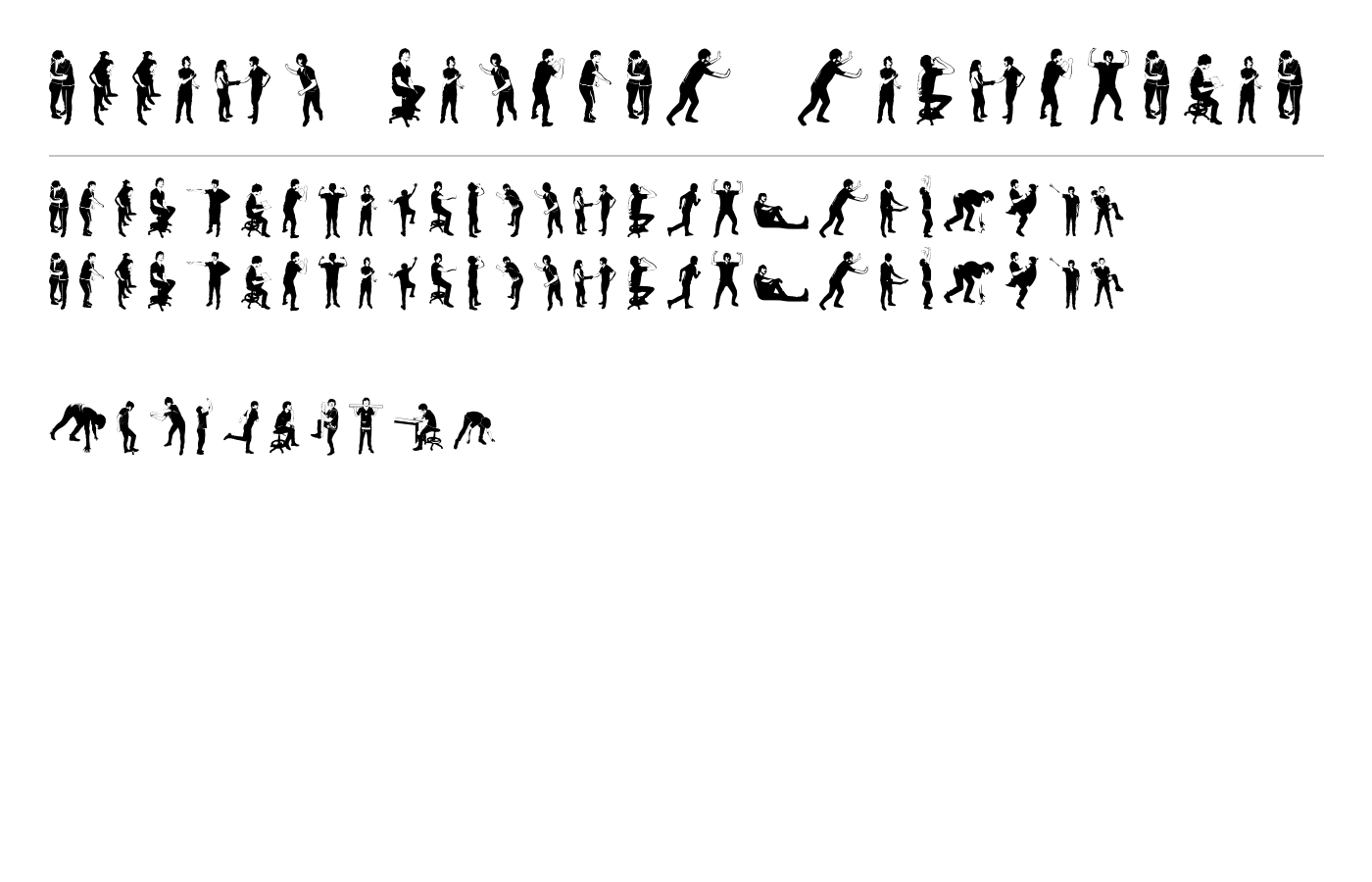
Accion Dingbat Tipografia is a playful dingbat font composed of detailed black silhouettes depicting various human gestures and actions. Rather than traditional letterforms, it uses expressive, small-scale figures to communicate movement and emotion, making it ideal for creative projects that need visual storytelling or unique decorative elements. This font is best suited for informal designs, illustrations, or branding that embraces character and narrative through symbolic imagery.
accion dingbat tipografia Font
About accion dingbat tipografia Font